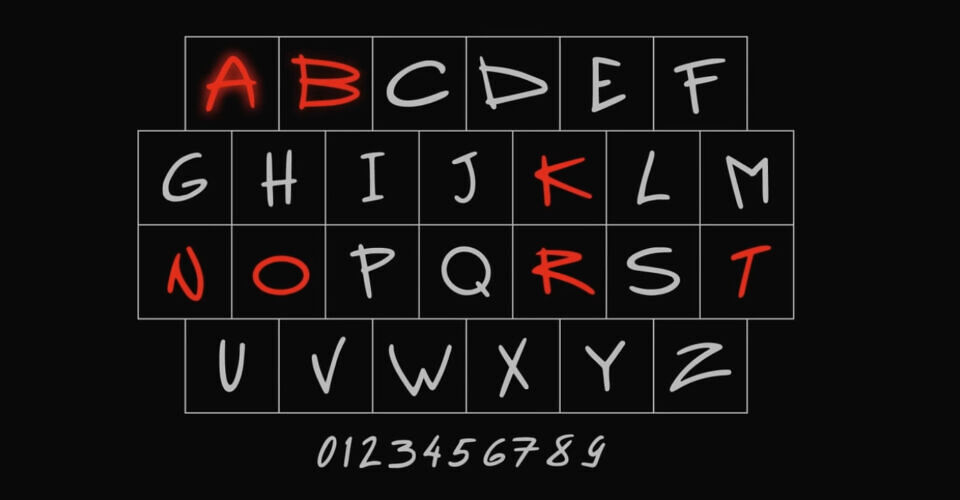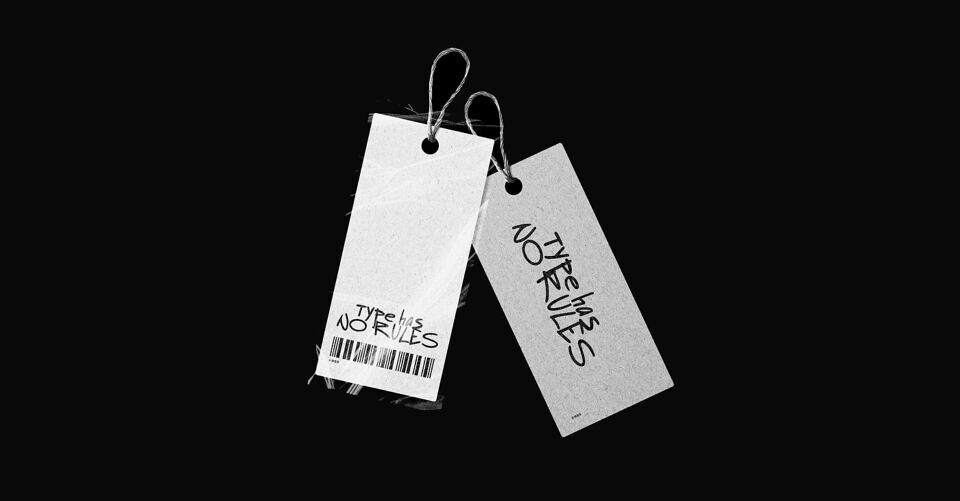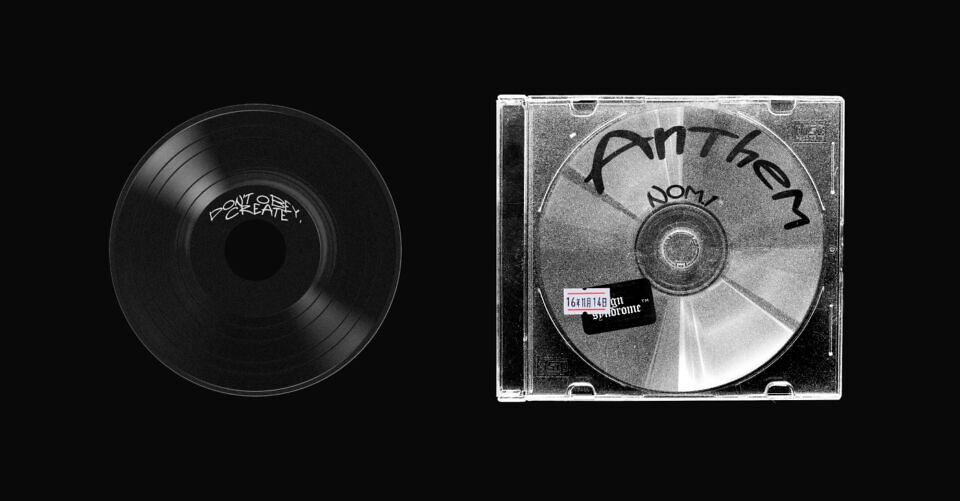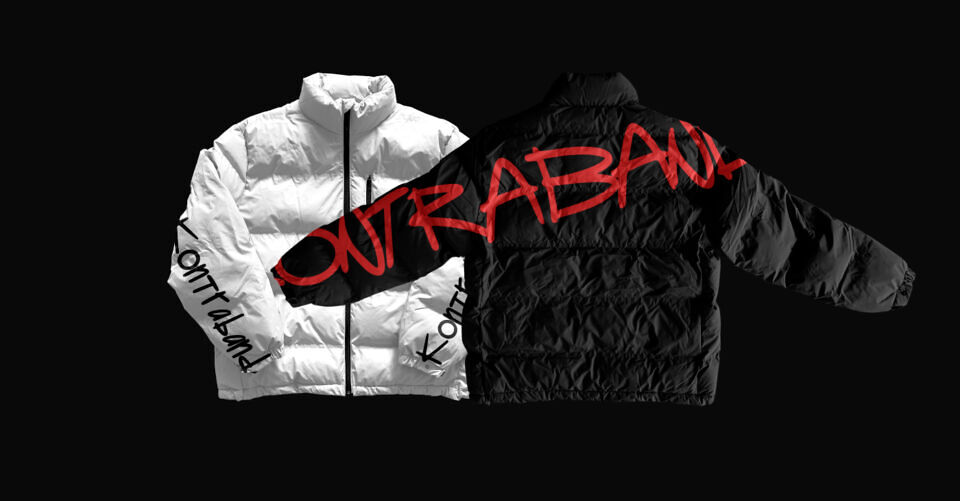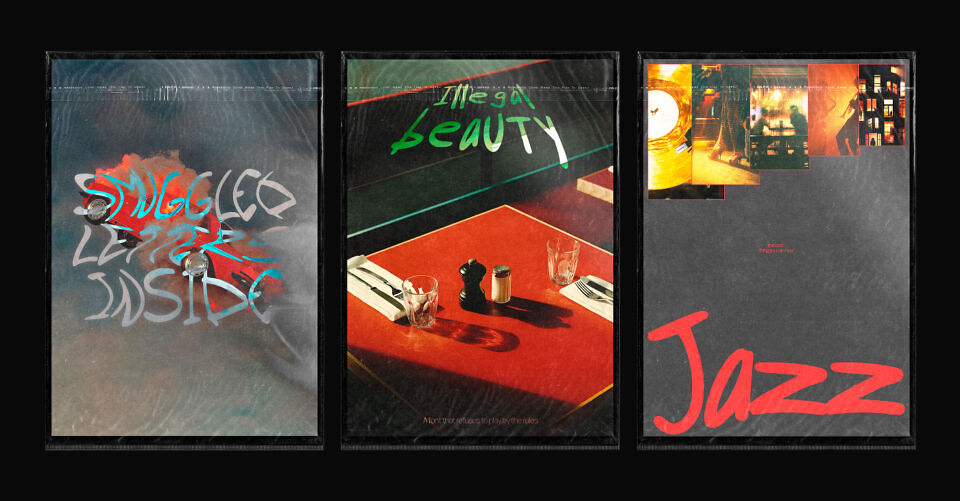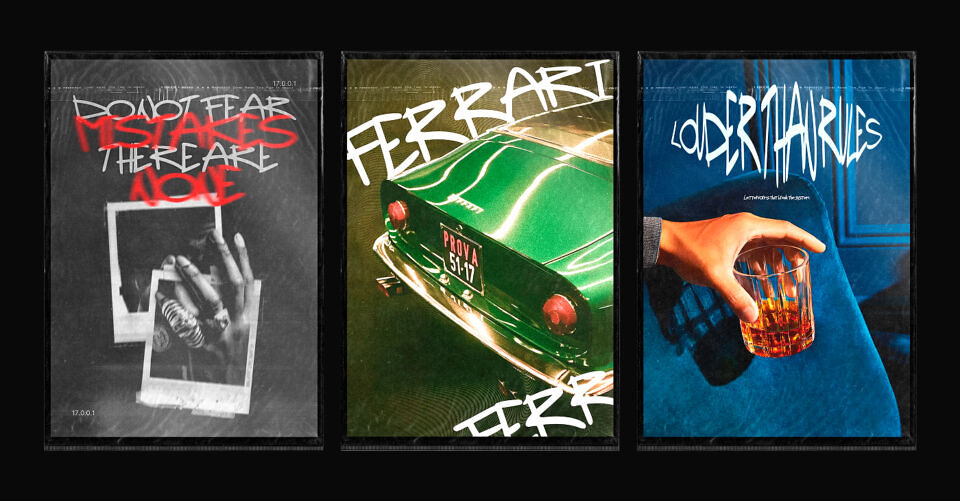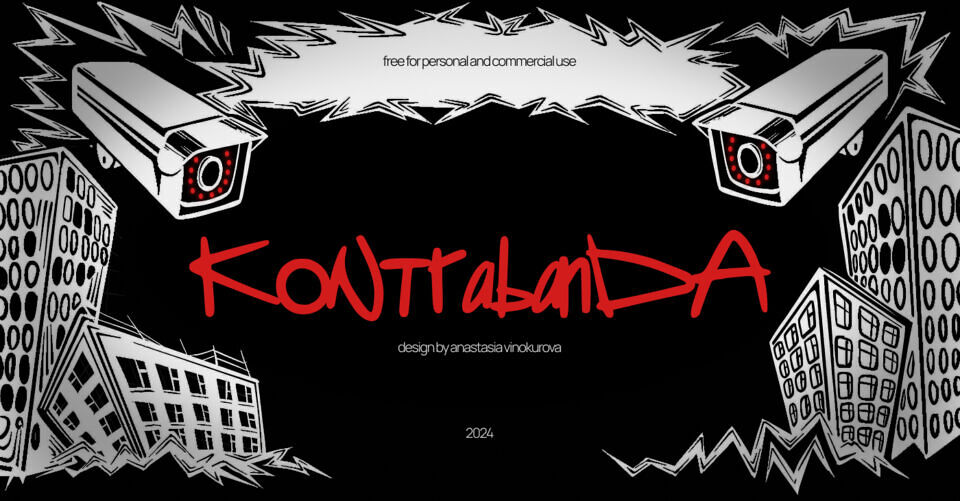
Kontrabanda Font
Kontrabanda by Anastasia Vinokurova is a bold, neon-inspired typeface reflecting the creative spirit of kontrabanda.cc, a video agency. Initially designed with Russian and English alphabets, its sharp, angular letters and smooth curves glow in red and white, evoking urban defiance. This is also an alternative version of Kontrabanda Font.
The hand-drawn style and coded numbers add a gritty edge, ideal for edgy branding or streetwear. As its popularity grew, requests led to its expansion into German, Czech, and Slavic languages, modernizing the font. Kontrabanda remains a daring choice for projects needing a rebellious, modern aesthetic.